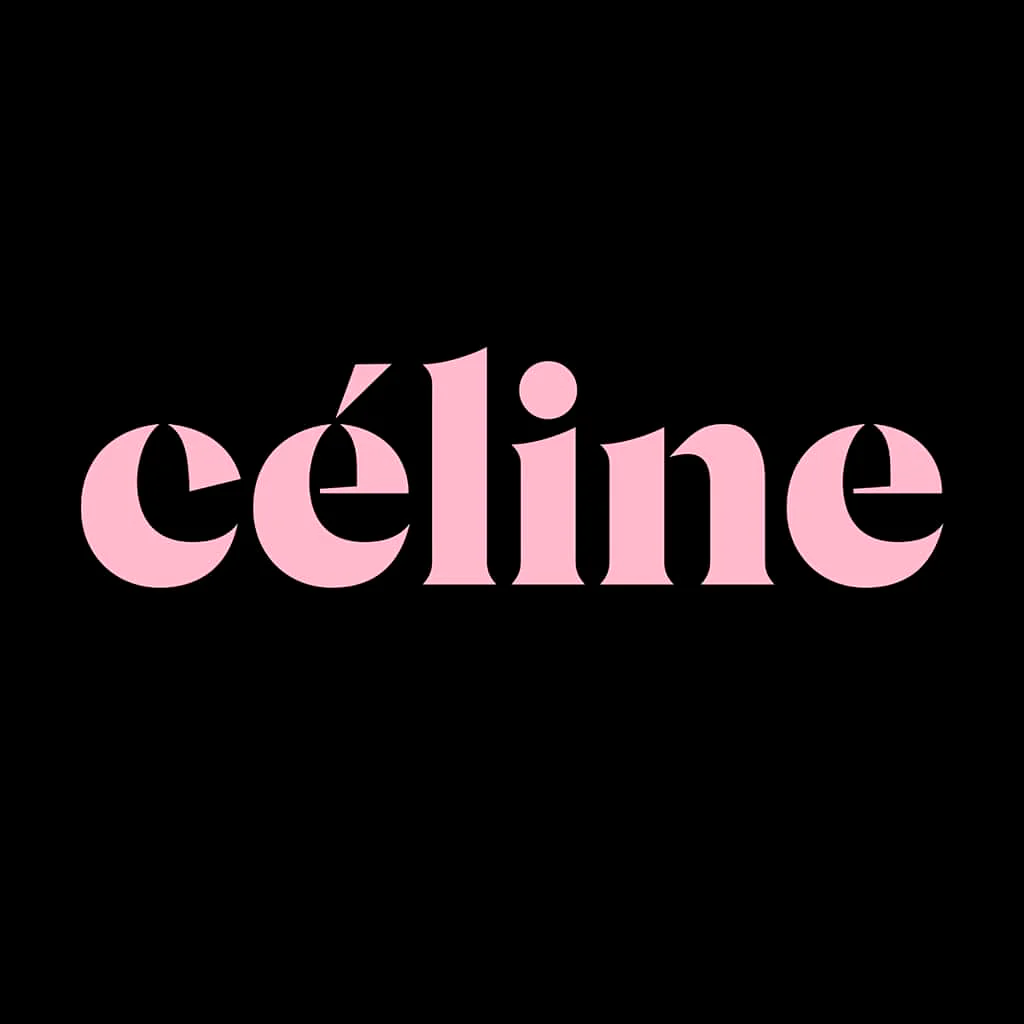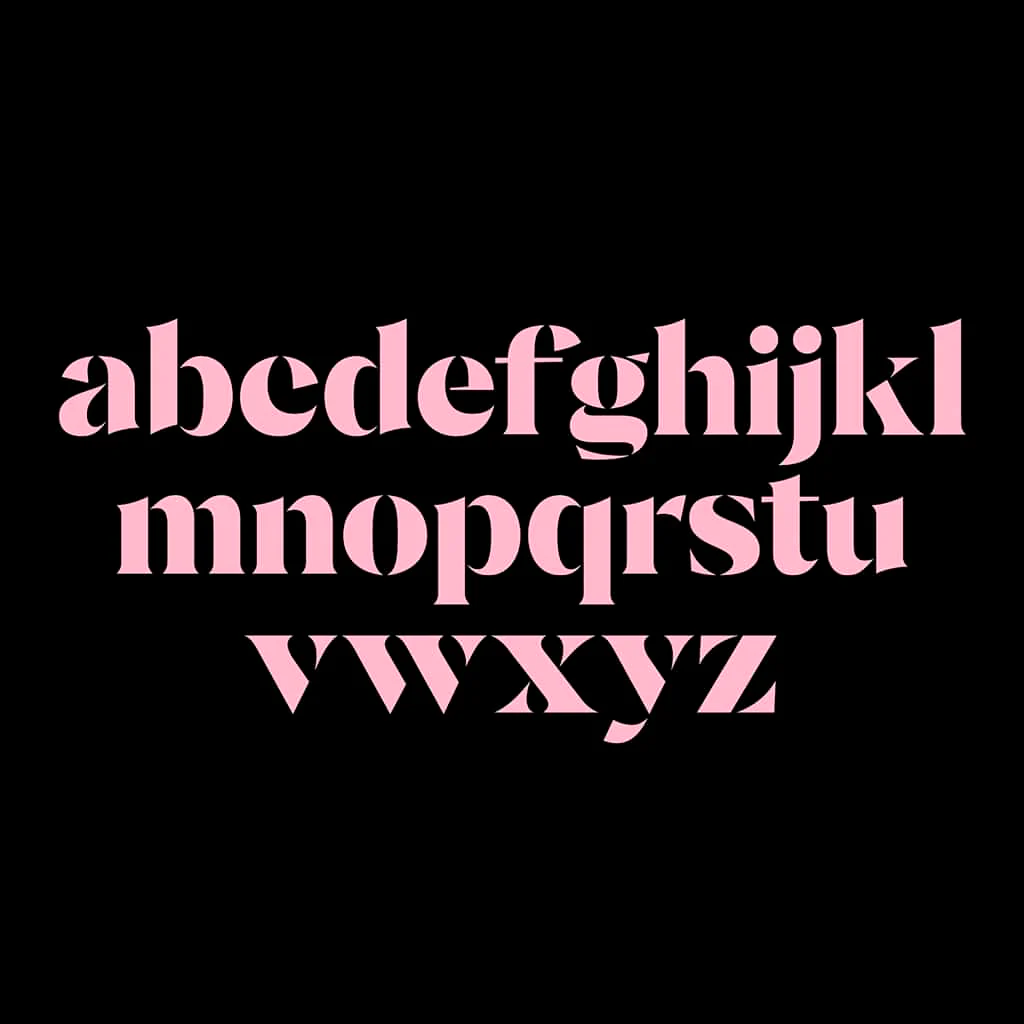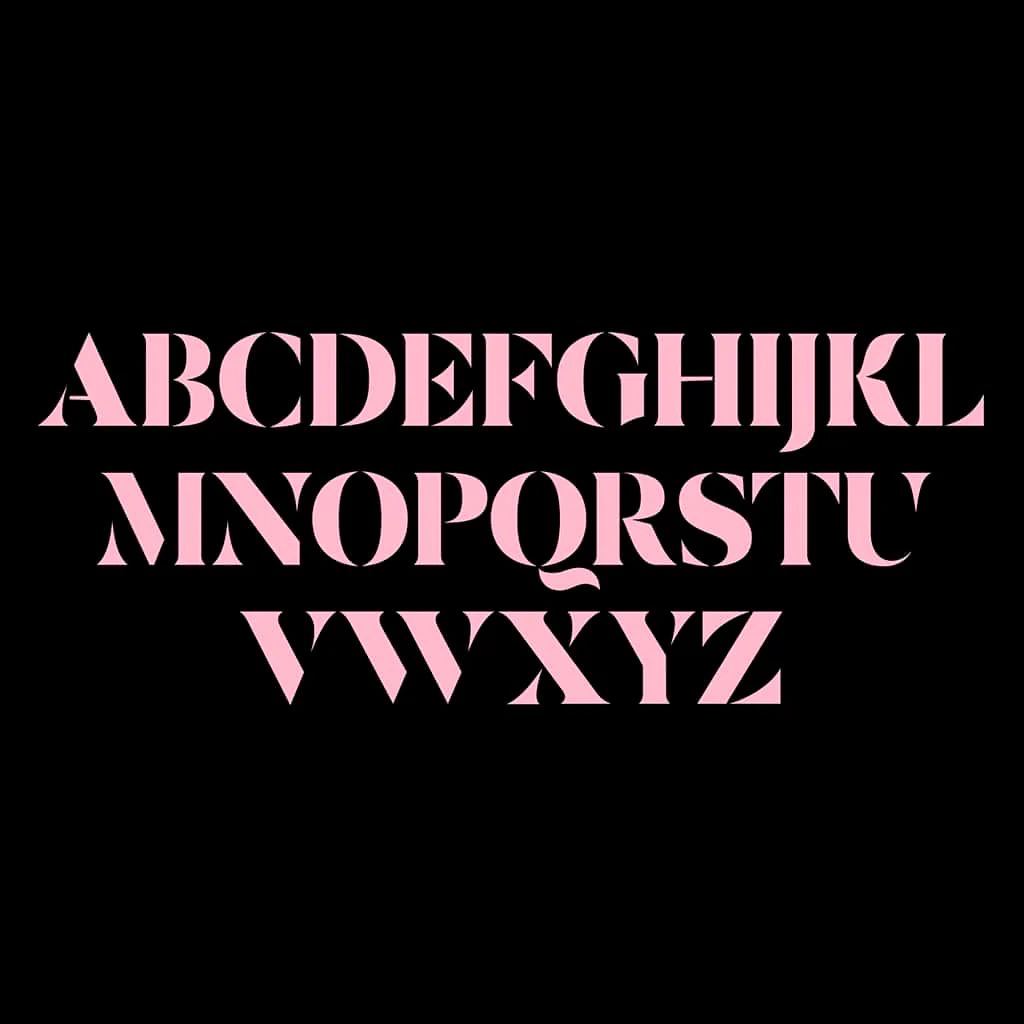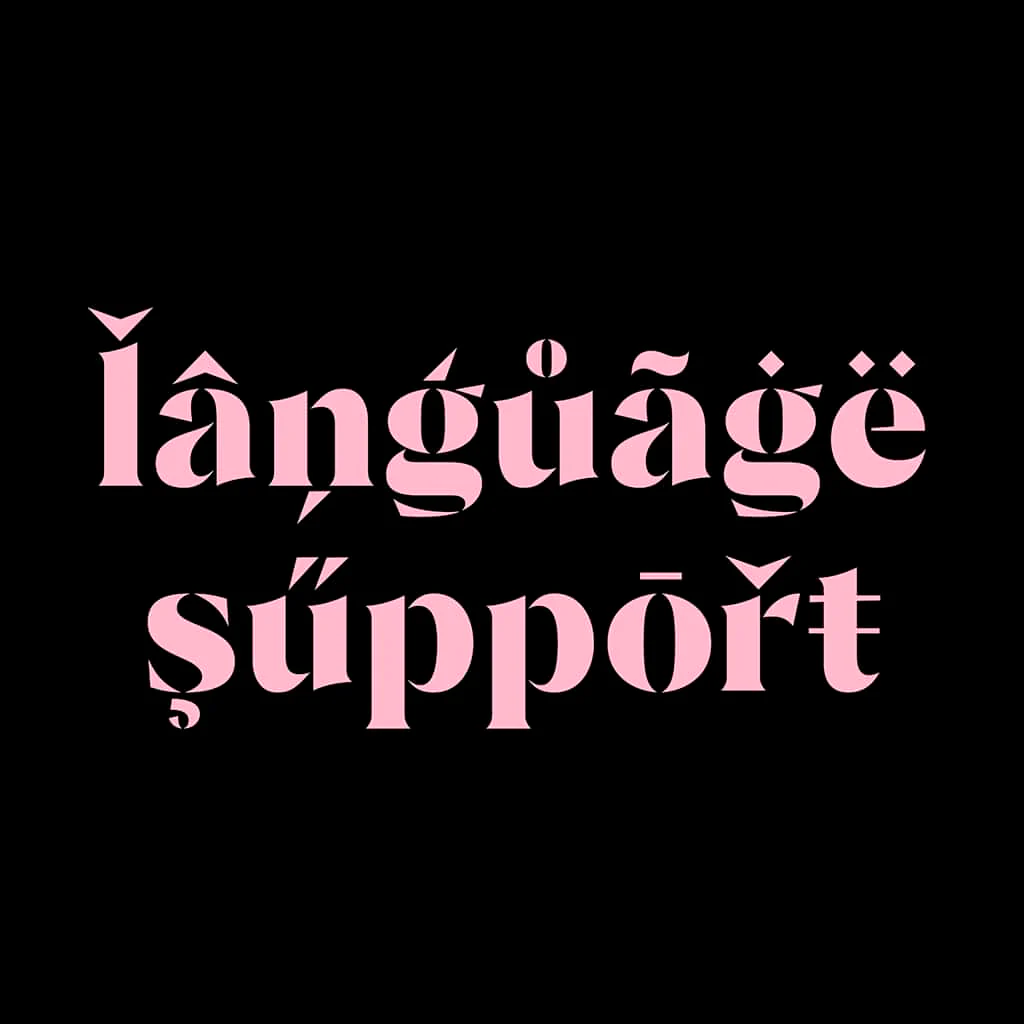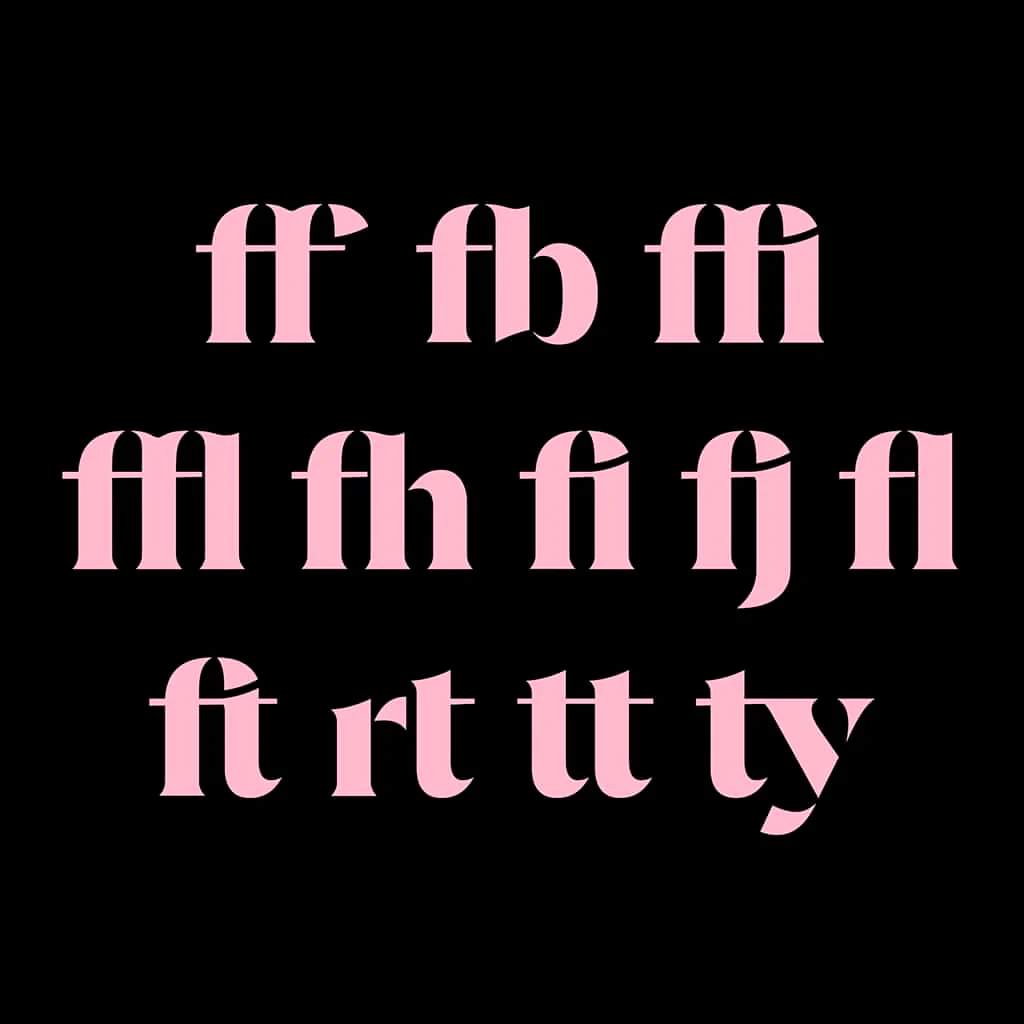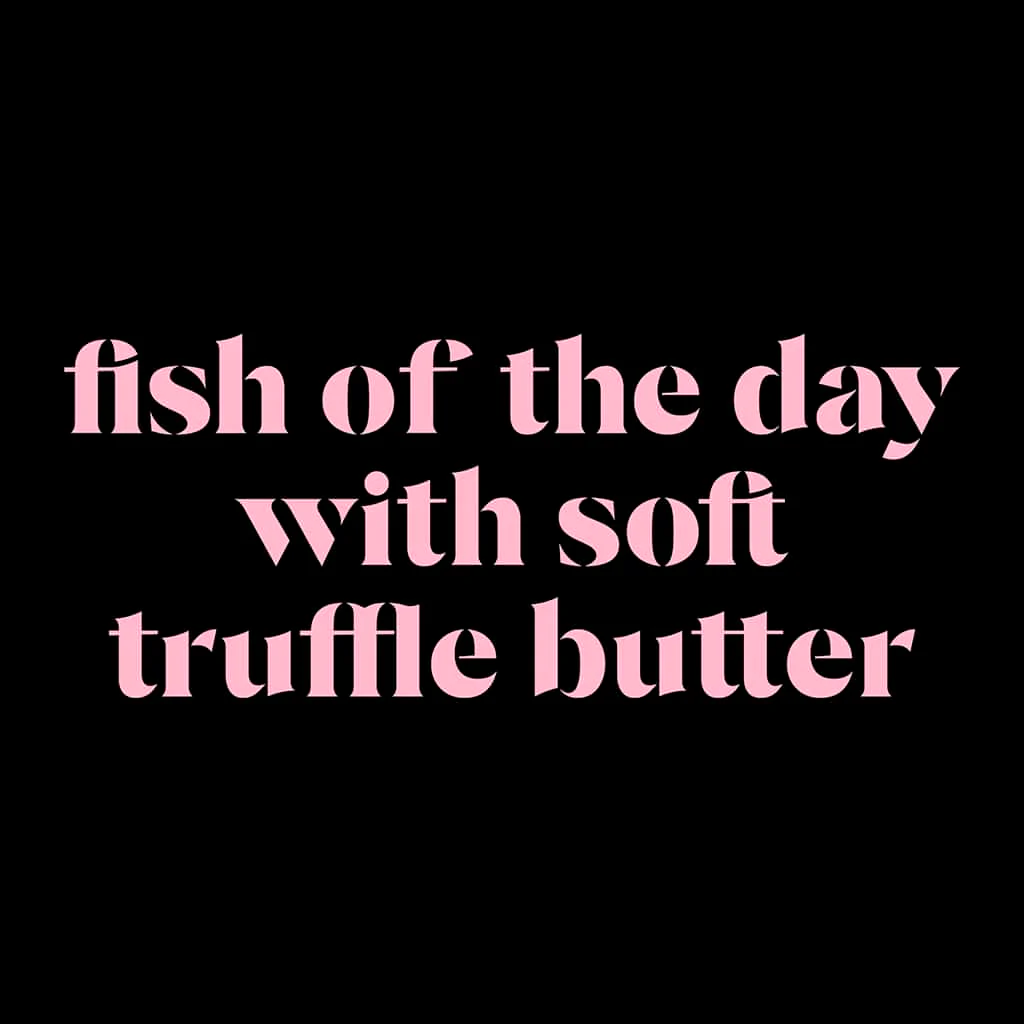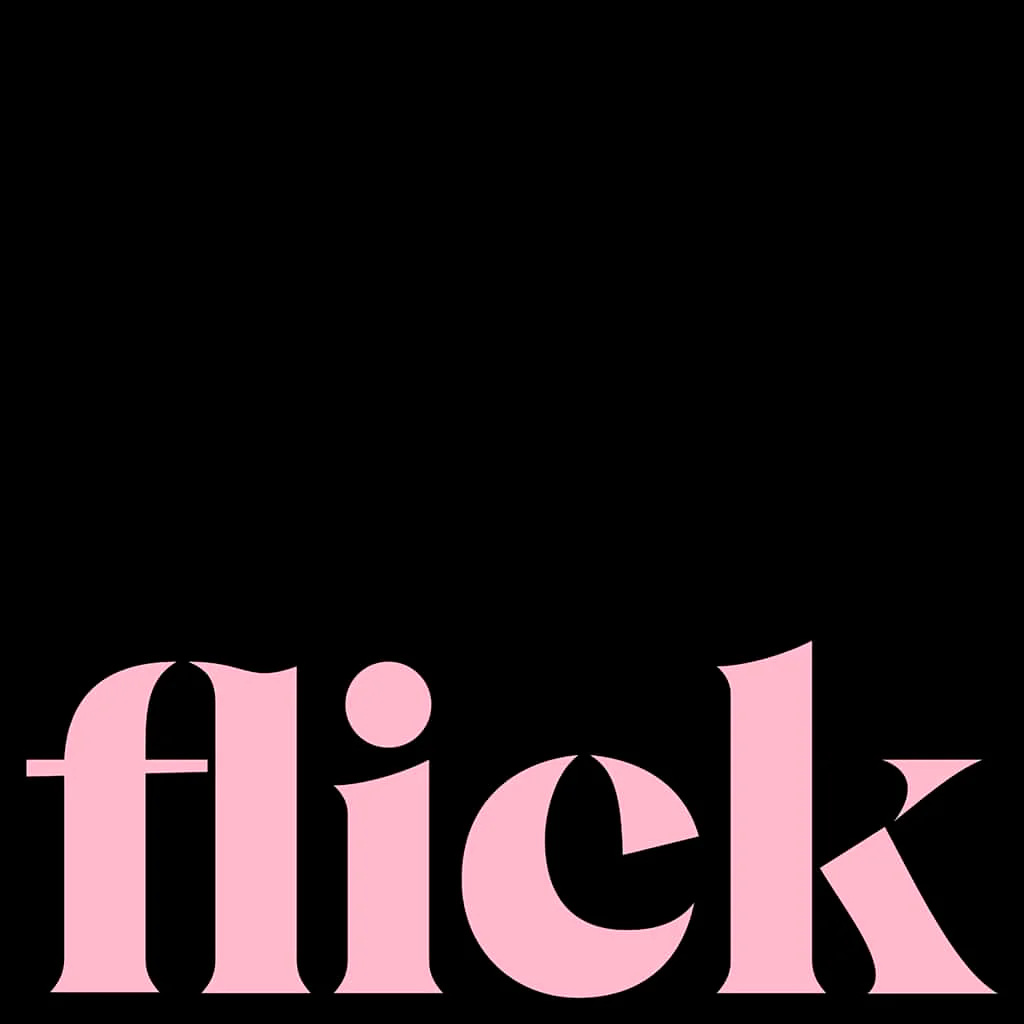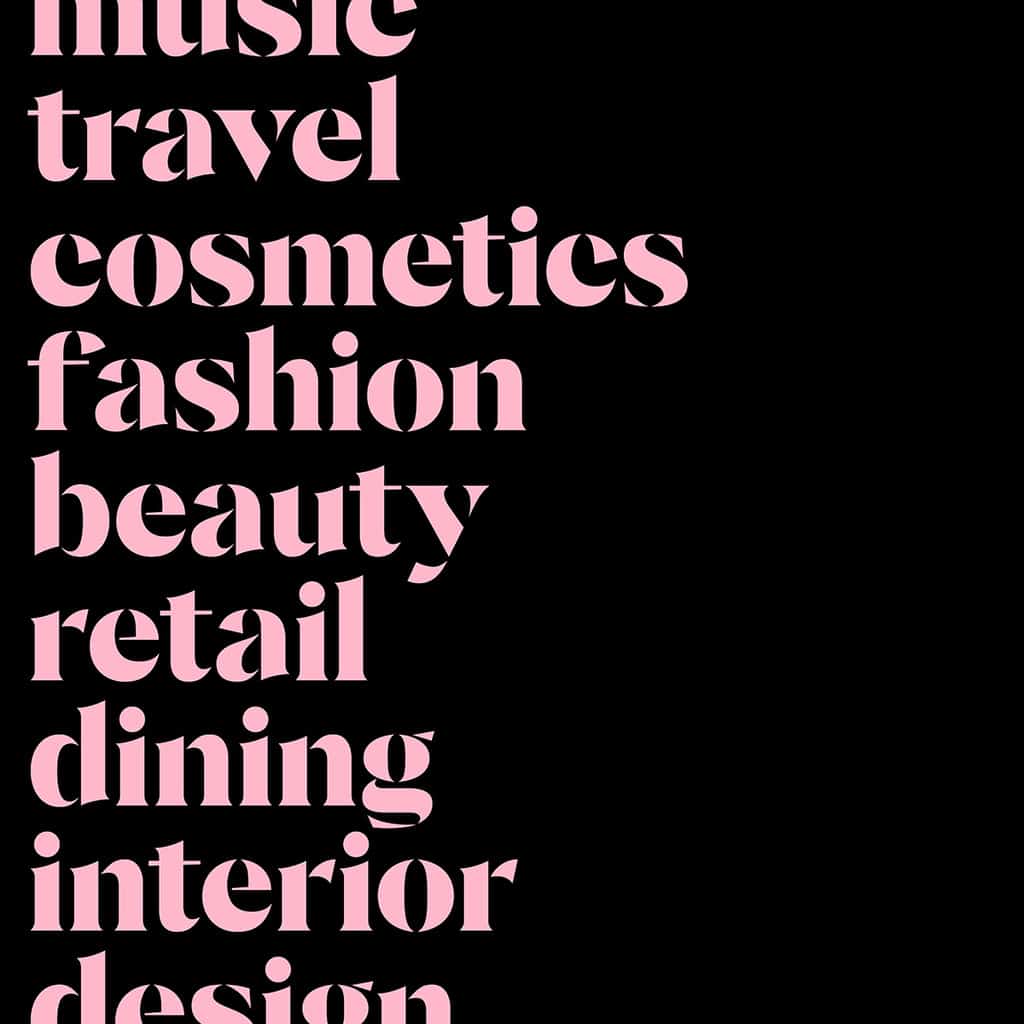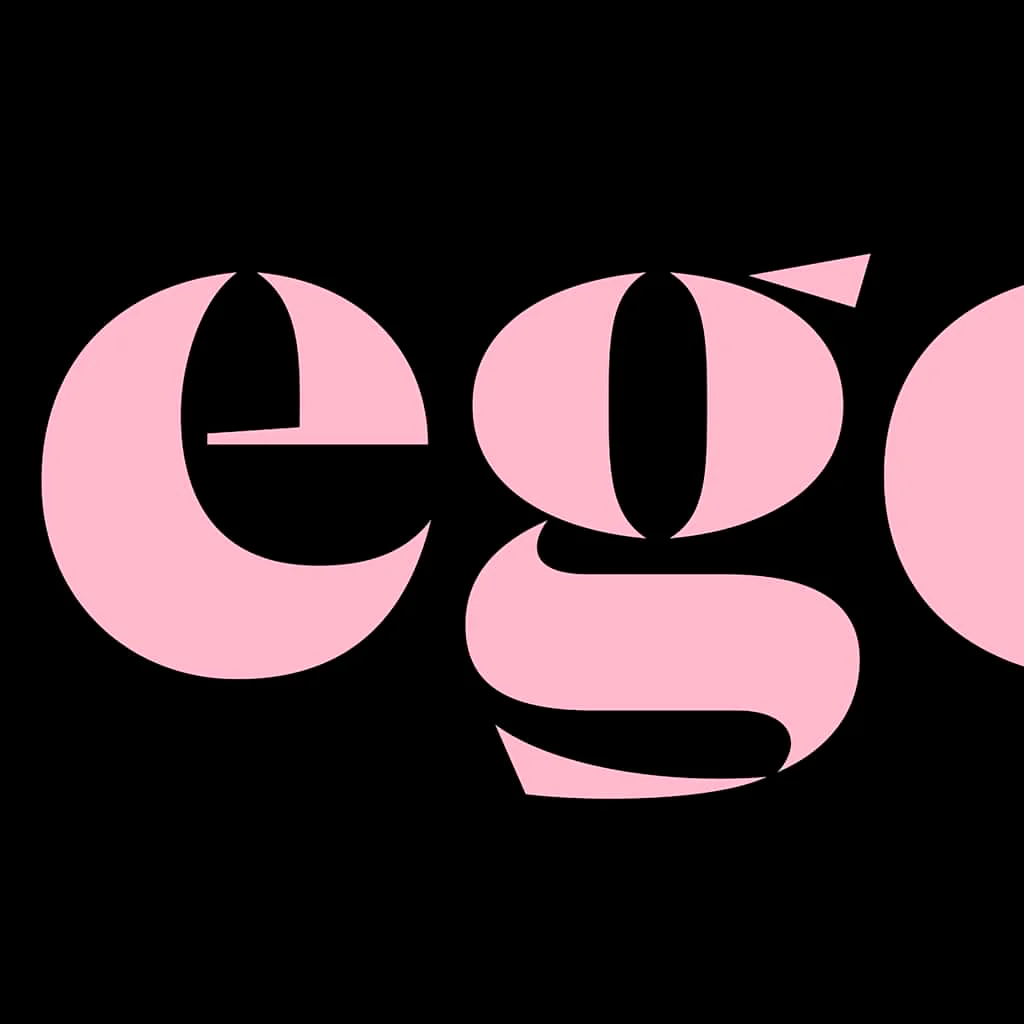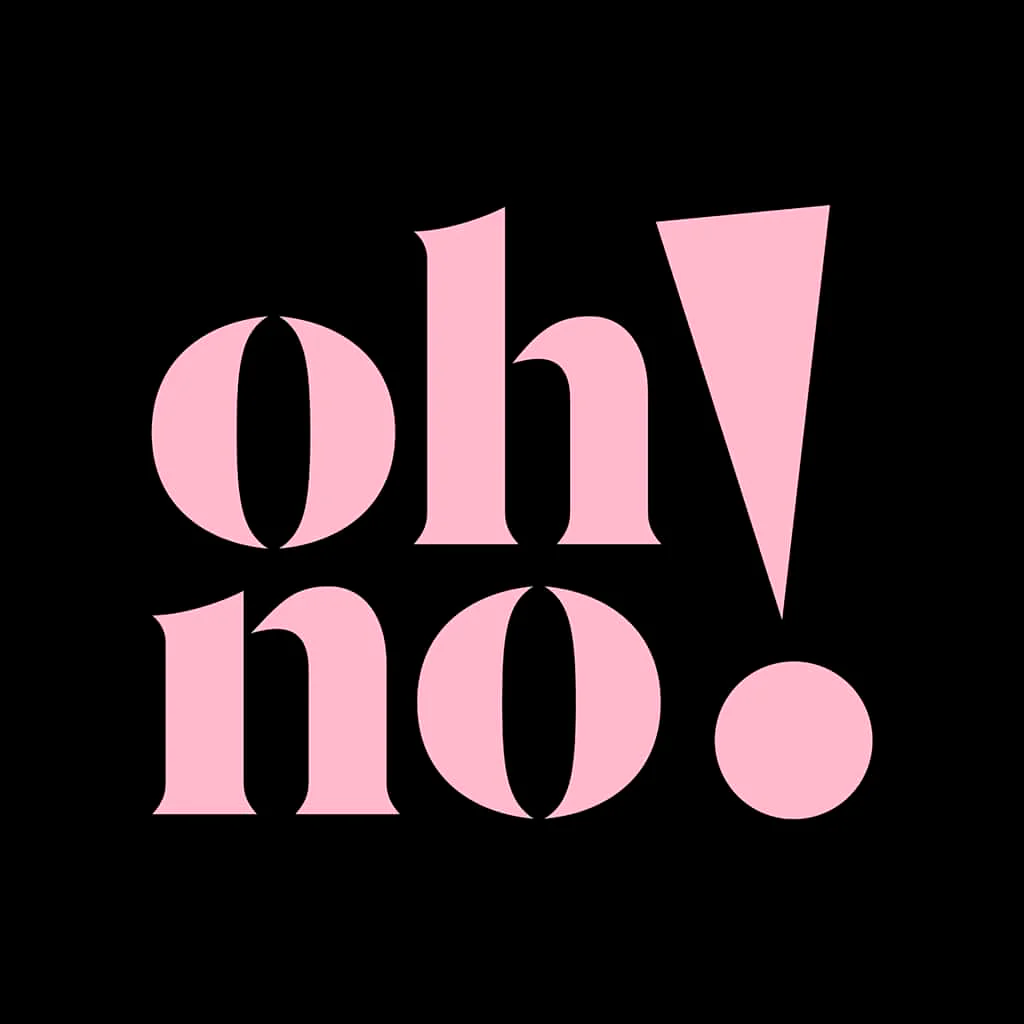
Céline
Céline draws inspiration from a picturesque vineyard in the South of France, where vintage stencil numerals on wine fermentation tanks sparked creator Wayne's imagination. Evoking rustic charm and modern flair, Wayne meticulously extended these influences into a complete, contemporary alphabet.
Ideal for crafting playful typographic identities, Céline excels in layouts, posters, and distinctive logotypes. Currently available as a single-weight stencil display typeface, future plans include expanding the family with multiple weights and non-stencil versions. Céline also features language support and a range of ligatures—both standard and discretionary—enhancing its versatility for creative projects.
Céline draws inspiration from a picturesque vineyard in the South of France, where vintage stencil numerals on wine fermentation tanks sparked creator Wayne's imagination. Evoking rustic charm and modern flair, Wayne meticulously extended these influences into a complete, contemporary alphabet.
Ideal for crafting playful typographic identities, Céline excels in layouts, posters, and distinctive logotypes. Currently available as a single-weight stencil display typeface, future plans include expanding the family with multiple weights and non-stencil versions. Céline also features language support and a range of ligatures—both standard and discretionary—enhancing its versatility for creative projects.